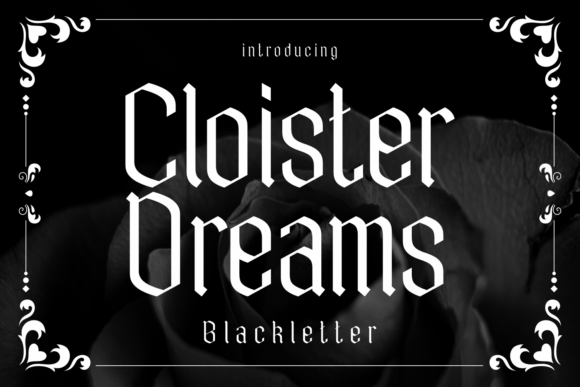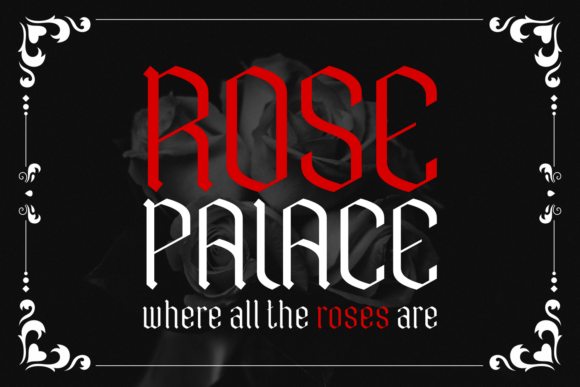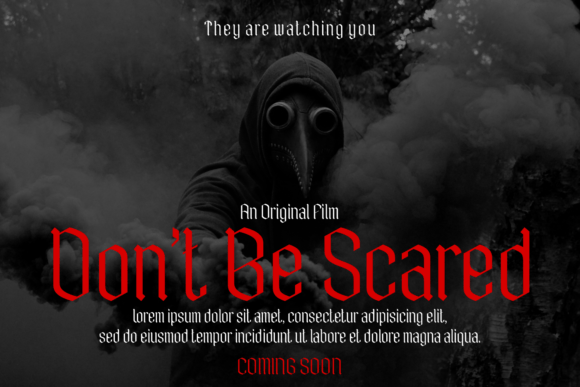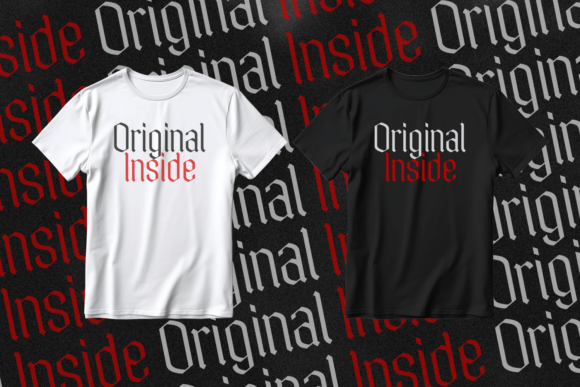
Cloister Dreams Font: Elegant Blackletter for Unique Branding
About the Cloister Dreams Font
Add a touch of class to your work with the Cloister Dreams Font, a truly exceptional typeface. Cloister Dreams is a gothic-inspired blackletter font exuding medieval elegance and mystique. Its intricate, sharp edges and flowing curves evoke timeless manuscripts and illuminated texts. Perfect for historical designs, branding, or artistic projects seeking a blend of tradition, sophistication, and bold, dramatic style.
Cloister Dreams excels in headlines, logos, and short text blocks where its intricate details can shine. It’s ideal for projects requiring a strong visual presence, such as branding for luxury goods, historical documentaries, or event posters with a vintage feel. Avoid using it for body text or lengthy paragraphs; its ornate forms hinder readability in extended use or small sizes. UI applications are also unsuitable.
Its bold and elegant personality pairs well with clean, modern sans-serif fonts like Helvetica or Futura for a striking contrast. For a softer contrast, consider pairing it with a classic serif such as Garamond or a more playful script font, depending on the desired mood. The contrast will allow Cloister Dreams to remain the focal point without overwhelming the design.
A sophisticated and dramatic font, Cloister Dreams is best suited for brands and projects aiming for a timeless, high-end aesthetic. Its medieval inspiration translates to a sense of authority and refined history, perfect for conveying heritage and quality.